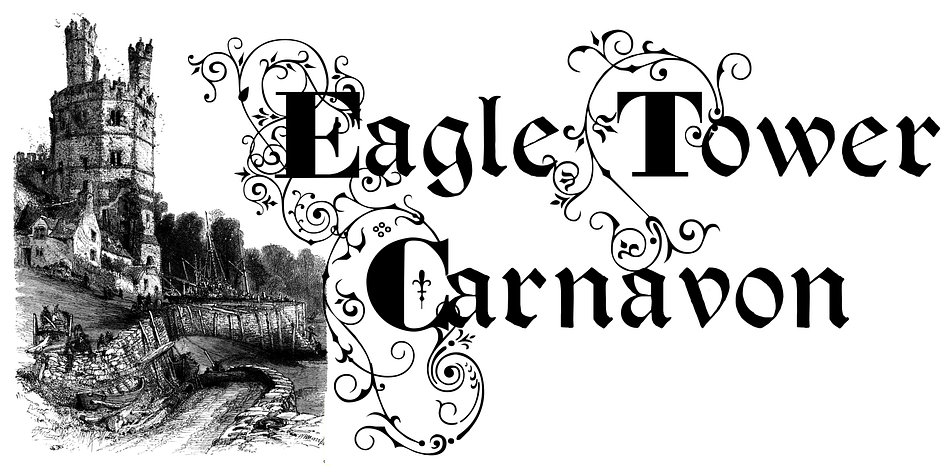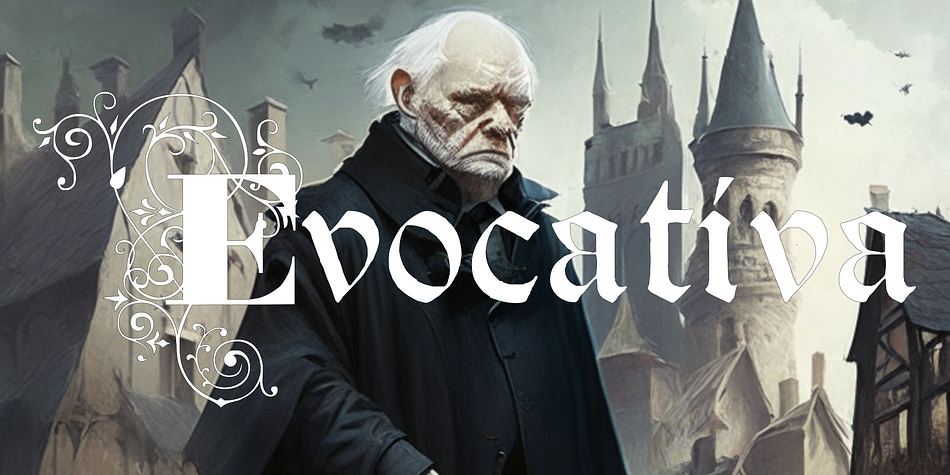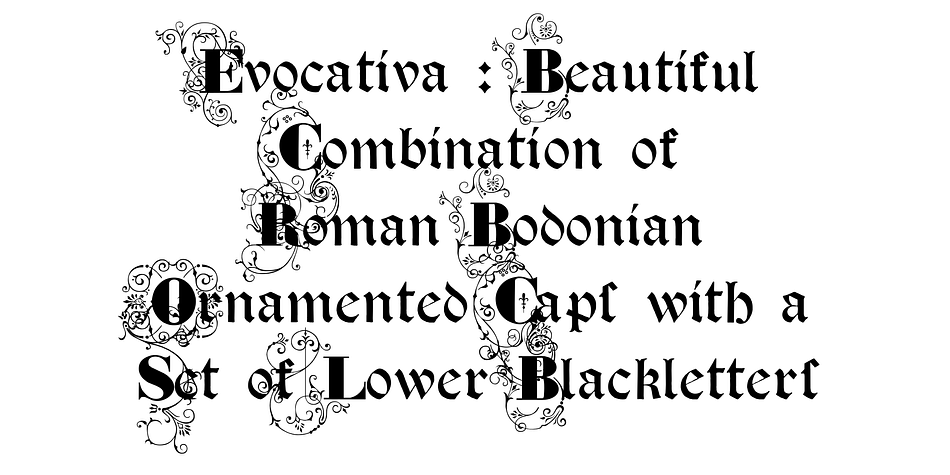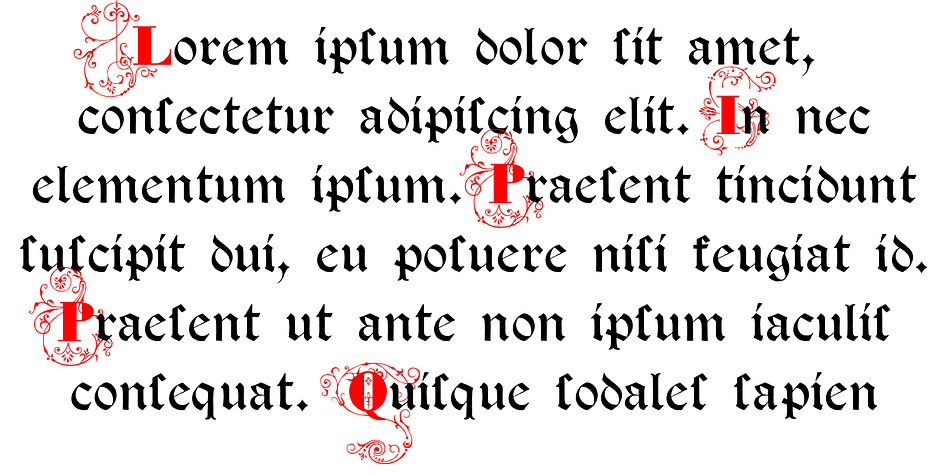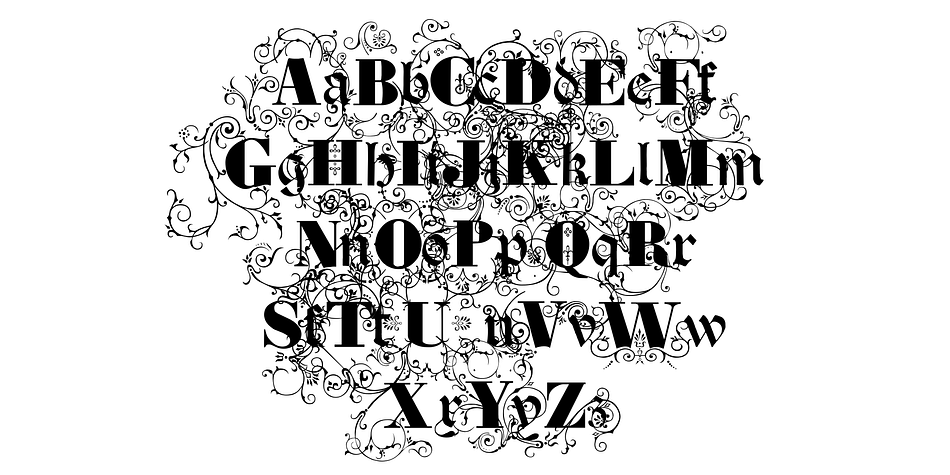
Evocativa
Designed by Paulo W, Evocativa is a multiple classification font family published by Intellecta Design.
Evocativa has a perfect combination of roman bodonian inspired ornamented caps with a well crafted blackletter set, in a balanced typeface suit to use in your headings text projects and in jobs with a classit and yet antique feeling.